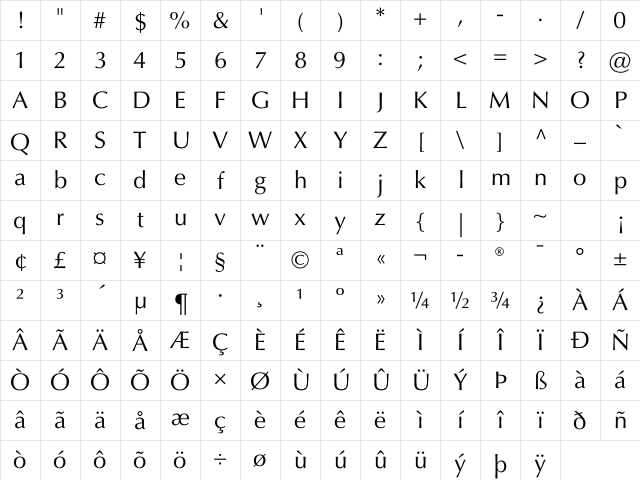
OptimaLTCYRW05-Roman Regular
Designer: Hermann Zapf
Design Context for OptimaLTCYRW05-Roman
OptimaLTCYRW05-Roman is a composed and adaptable typeface that performs quietly and consistently across a wide range of design contexts.